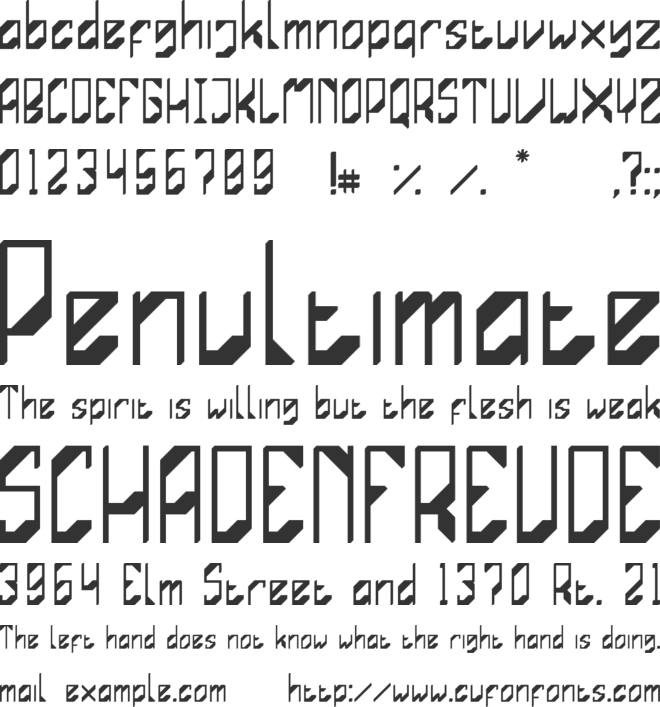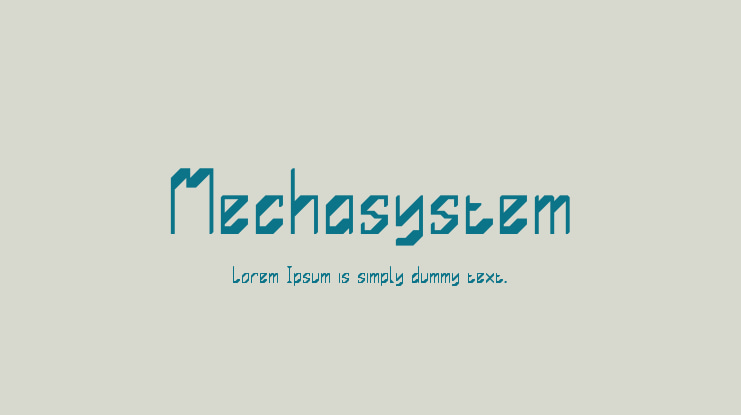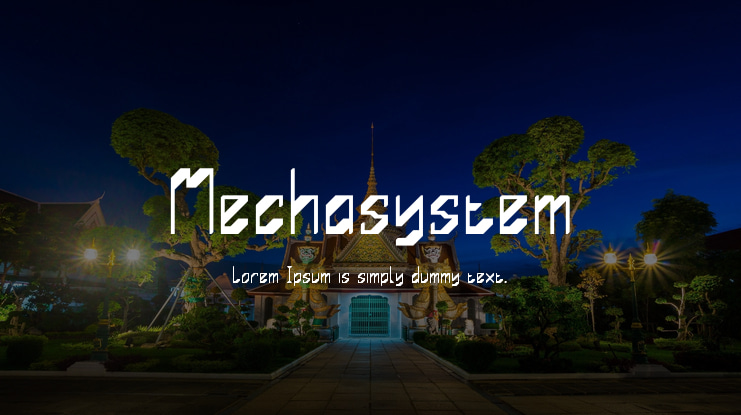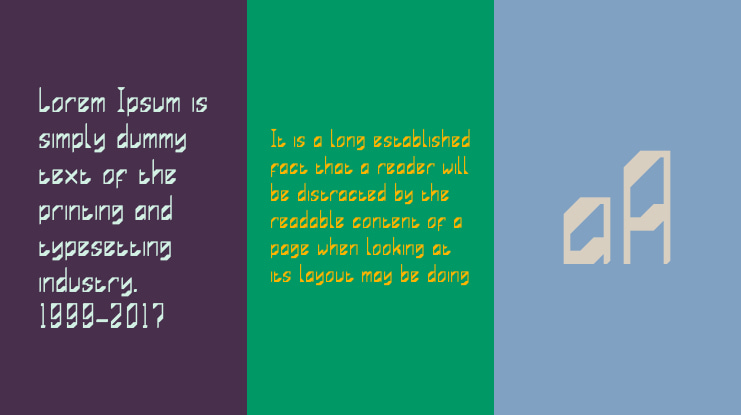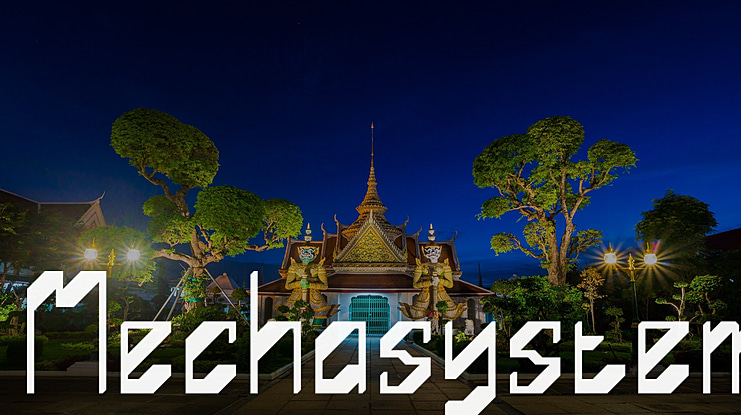
Mechasystem Font
influenced by modern sci-fi robotic movie. base modular made by repeated triangle shape. feel free to share & make sure hit me up when you use this font,